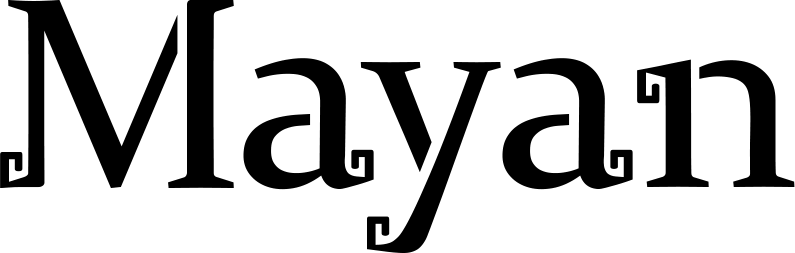
Mayan Font
Today we have a unique Mexican font for you so you can transfer a native and nostalgic vibe through your words. This font is called Mayan, inspired by the Maya culture and artworks. It is perfect for giving a decorative…
Today we have a unique Mexican font for you so you can transfer a native and nostalgic vibe through your words. This font is called Mayan, inspired by the Maya culture and artworks.
It is perfect for giving a decorative and vintage look to the reader and making eye-catching titles. This font has curly elements and is perfect for writing classical novels, vintage movie titles, and Mexican fair banners.
The typography “Mayan” is based in the mexican style of the maya’s culture.